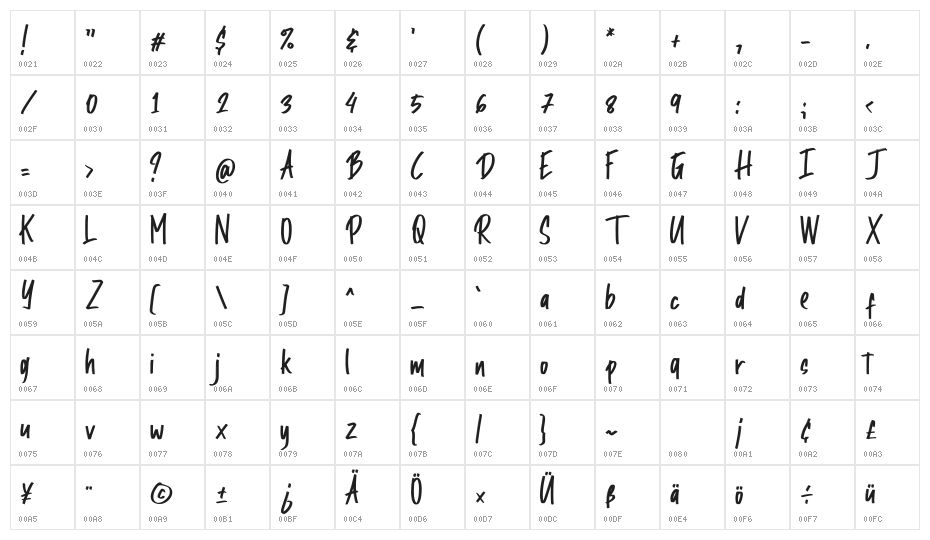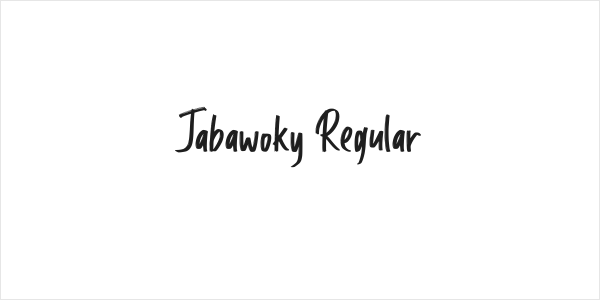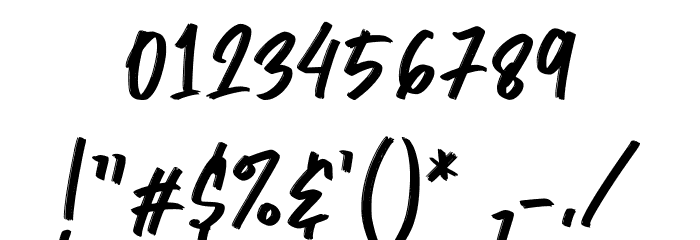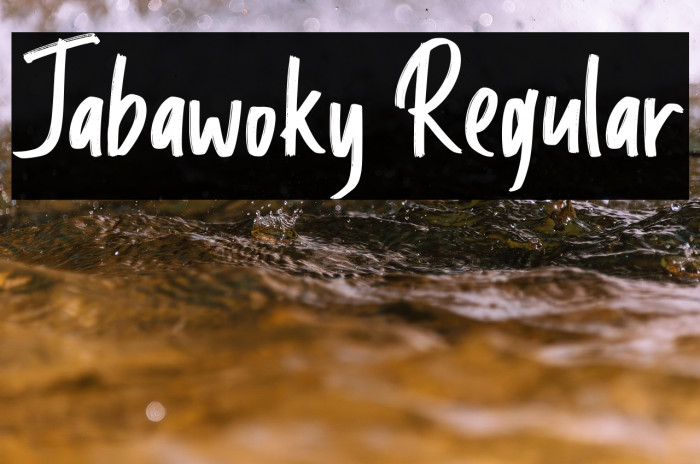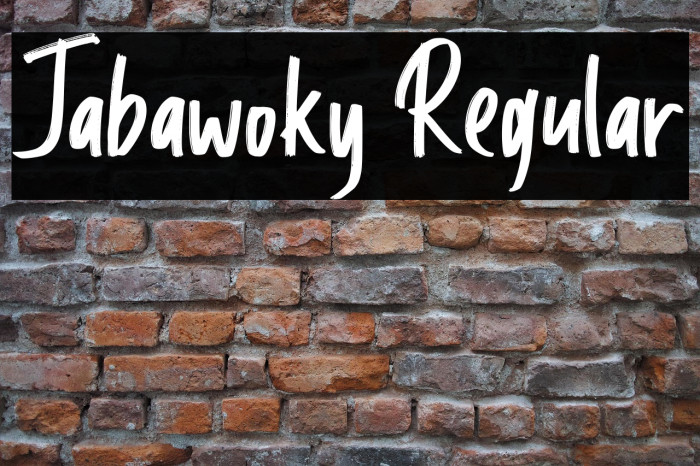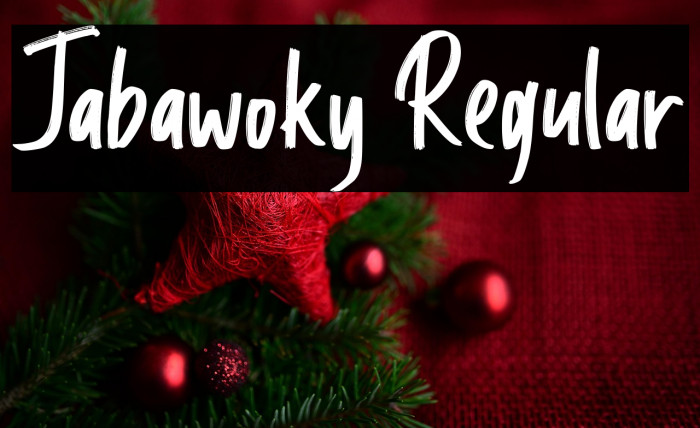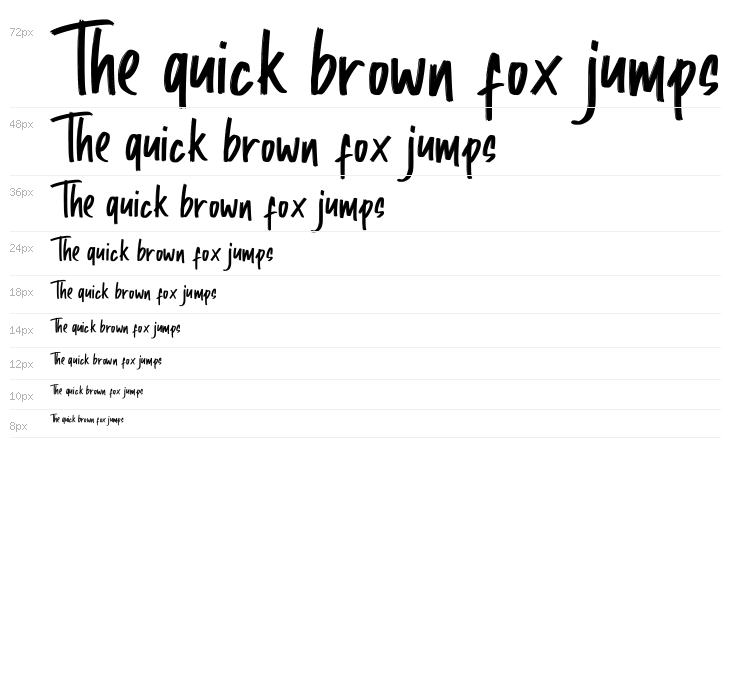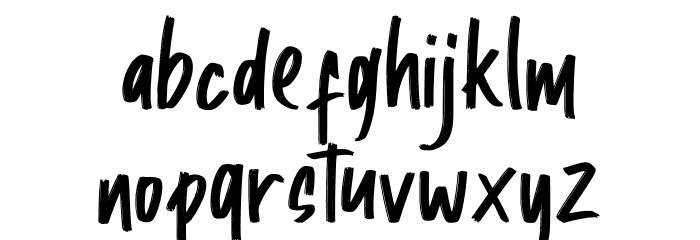
Jabawoky Regular Font
This font features a bold and energetic handwritten style, characterized by its dynamic and slightly irregular strokes. The letters are tall and narrow, with a playful and informal appearance that adds a sense of movement and personality. The uppercase and lowercase letters maintain a consistent style, with some letters having unique, exaggerated forms that enhance its quirky charm. The numbers and special characters follow the same lively design, making it versatile for various creative applications.